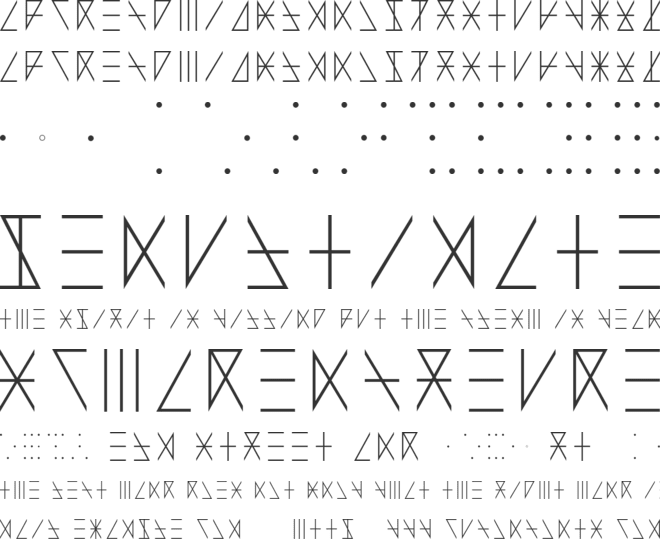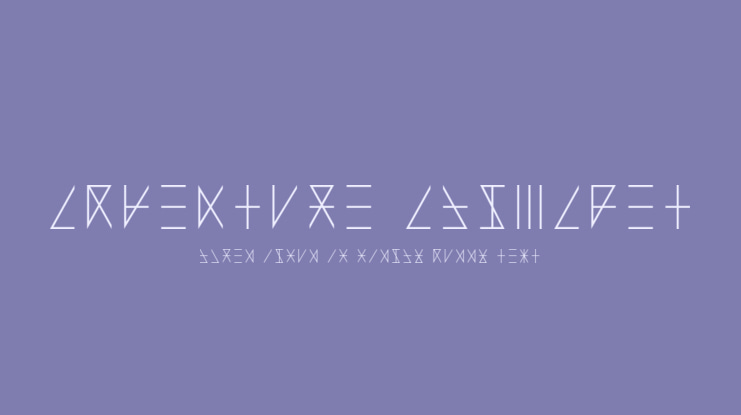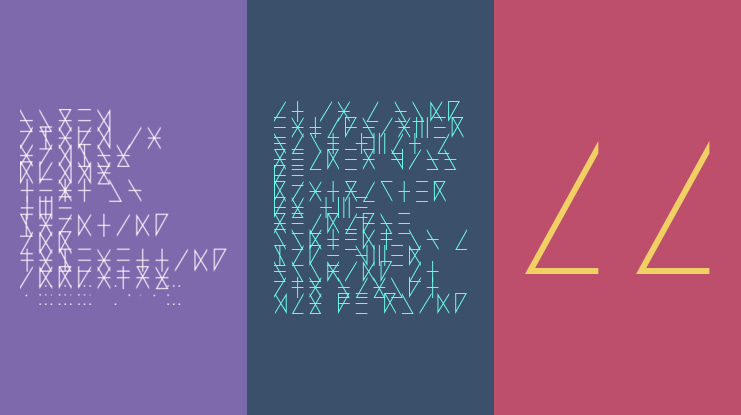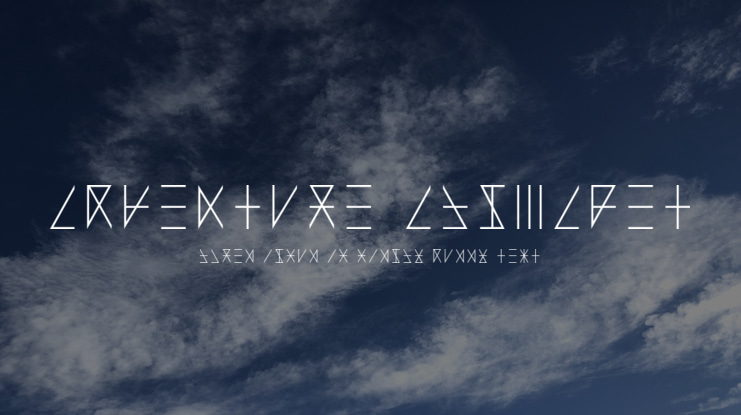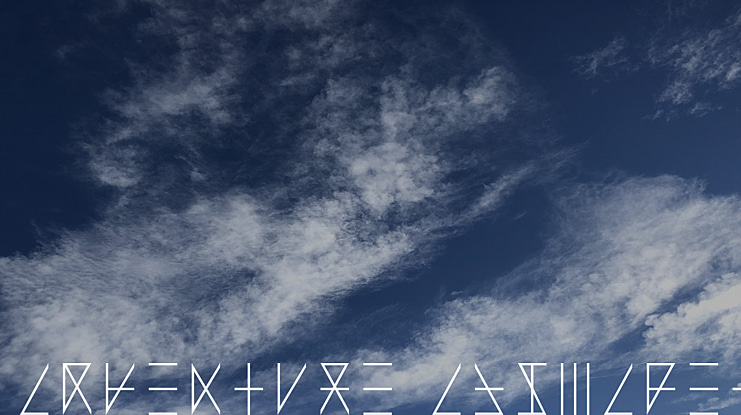
Adventure Alphabet Font
Based on 'the alphabet' secret code created and used by Madeon in his music videos. Created by @Jessssuhh for shits and giggles.